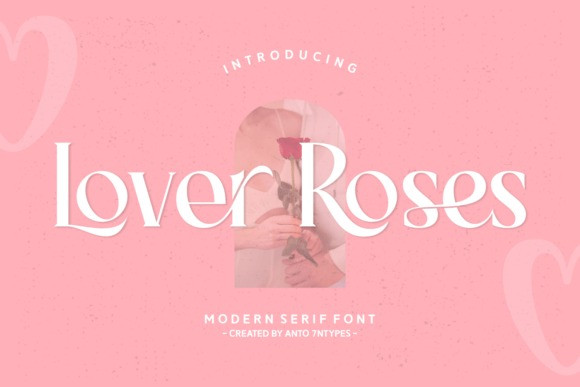
Lover Roses Font
Designer: Anto (7NTypes)
Lover Roses Font a multi-faceted font that carries the fragrance of love in every stroke. Designed with deep passion and romance, this font is adorned with heart swashes and cultural accents, evoking the charm and allure reminiscent of a blooming rose garden. Lover Roses seamlessly combines elegance with boldness and liveliness, resulting in a modern, yet timeless typography ideal for both digital and print mediums.
Designed to add an authentic touch of love to every project, Lover Roses does not fall short in versatility—it is as perfect on a birthday greeting card as it is on a stylish clothing label or logo. Its clean lines and inspiring elegance make it a splendid choice for book covers, brand identity, and magazine layouts. This font family offers regular and italic styles including alternates, ligatures, and multilingual support for inclusivity.
Whether you’re working on packaging design, capturing memories through photography, or curating quotes, Lover Roses enhances your creativity with its spirited, cheerful, and delicate characters. The font flawlessly balances trendiness and charm, making it perfect for creating eye-catching titles for books or for adding a bold statement to T-shirts.
Let your font be an extension of your creativity and spread the essence of love with Lover Roses, a dedicated font for the romantics, the trendsetters, and the influencers. Dive right into its versatility and let your designs express stories wrapped in charm and elegance.